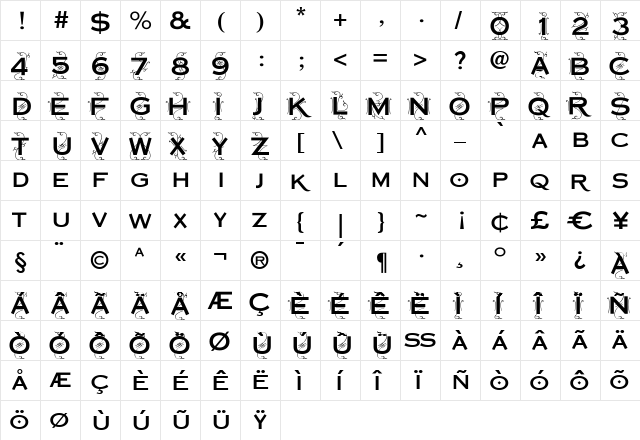
Copperplate Deco Sans Regular
Design Context for Copperplate Deco Sans Typeface
Copperplate Deco Sans is a composed and adaptable typeface that performs quietly and consistently across a wide range of design contexts.
Pro Tip: Use Copperplate Deco Sans in both headline and body roles to test its range before committing to a single application.